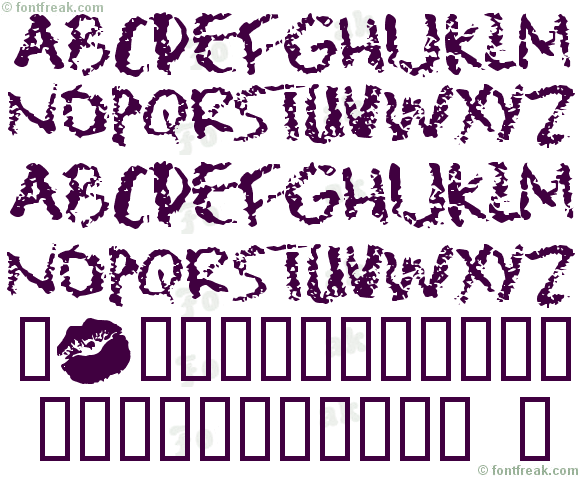
Lipstick Traces
About Lipstick Traces
Lipstick Traces is a captivating display font designed by Solar Sister Fonts, categorized as a decorative typeface. Released in 1999 by Isabelle Trolio, this font embraces an eye-catching and playful aesthetic that stands out in various design contexts. The strokes of Lipstick Traces exhibit a unique irregularity, mimicking the smudged impressions of lipstick, which provides a bold and expressive character. The contrast is moderate, with thicker strokes complemented by delicate, jagged edges that enhance its artistic flair. The letter spacing is tight, creating a compact appearance that draws attention while maintaining legibility.
This font is versatile and can be effectively utilized in a range of creative projects. It's an excellent choice for wedding invitations, where its whimsical style can add a personal touch. Additionally, Lipstick Traces is ideal for movie posters, particularly those in the romance or comedy genres, as it conveys a sense of fun and spontaneity. Restaurant menus can also benefit from this font, especially in establishments that emphasize a casual and inviting atmosphere. Furthermore, it suits branding for cosmetics or fashion brands targeting a youthful audience, making it a go-to option for logo design and promotional materials.
Targeted toward graphic designers, small business owners, and content creators, Lipstick Traces appeals to those looking to add a distinctive flair to their projects. Its unique character and playful nature make it a fantastic choice for anyone wanting to make a statement.